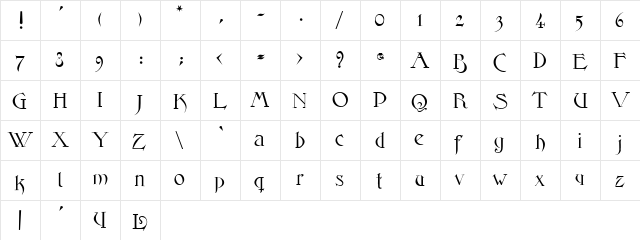
Elphinstone Regular
Design Context for Elphinstone Typeface
Elphinstone is a composed and adaptable typeface that performs quietly and consistently across a wide range of design contexts.
Pro Tip: Pair Elphinstone with a font of contrasting weight or personality to build a more expressive typographic hierarchy.